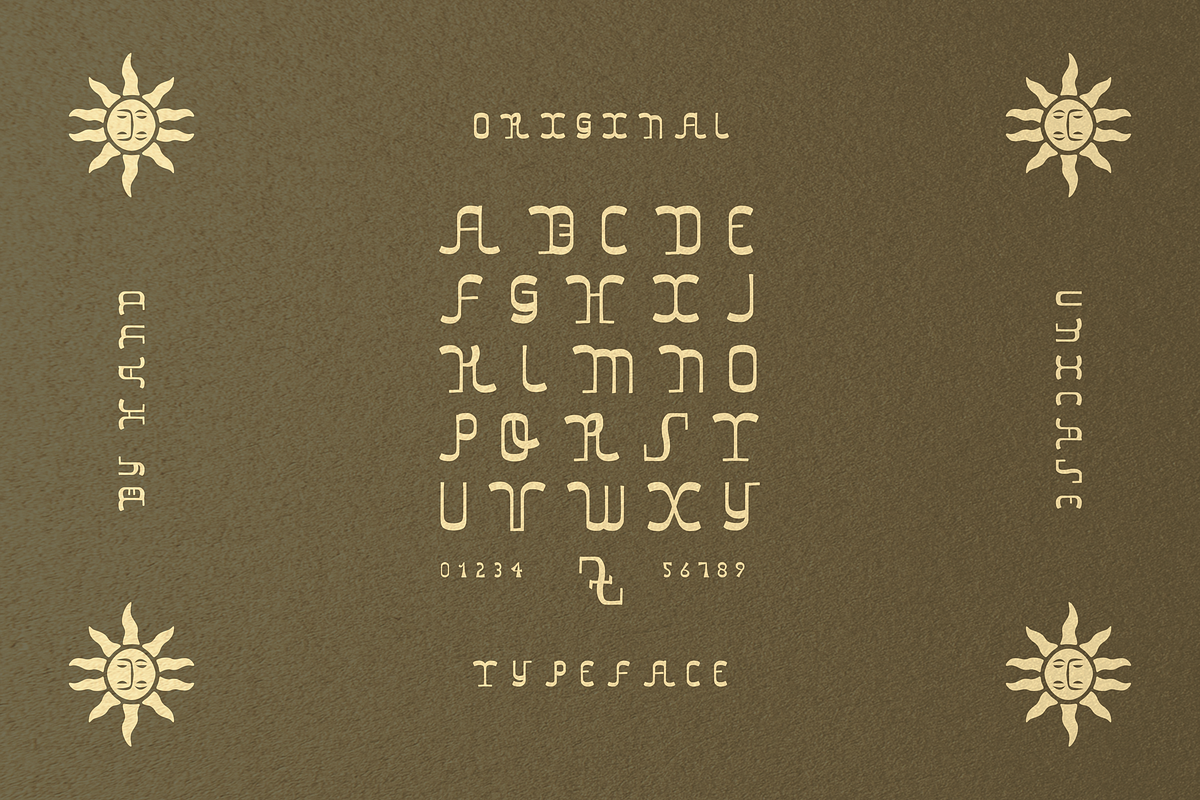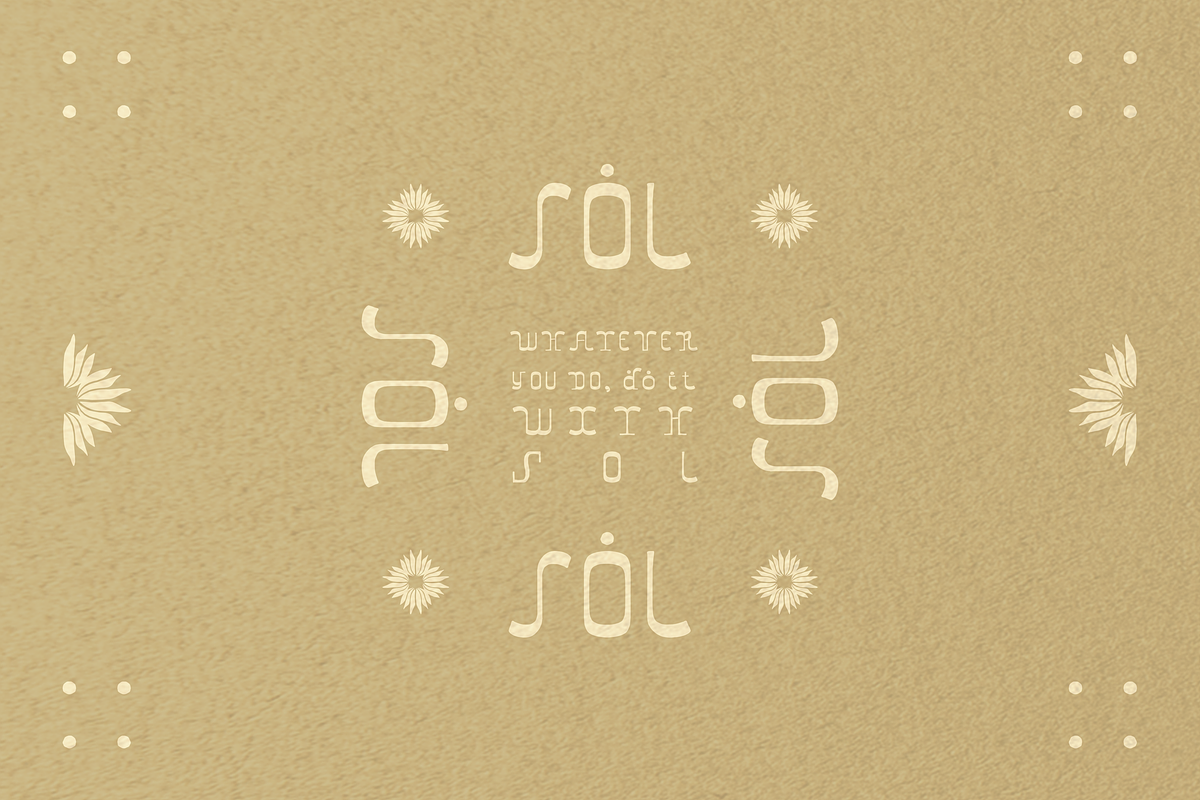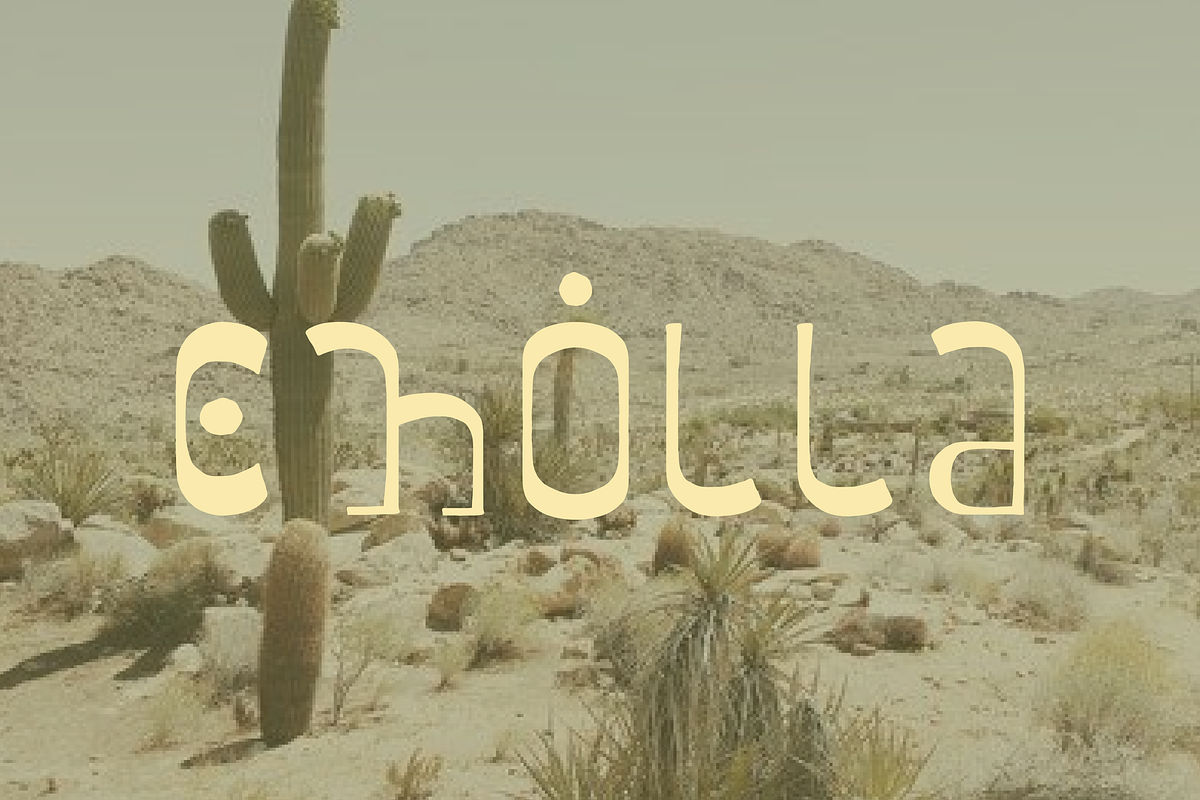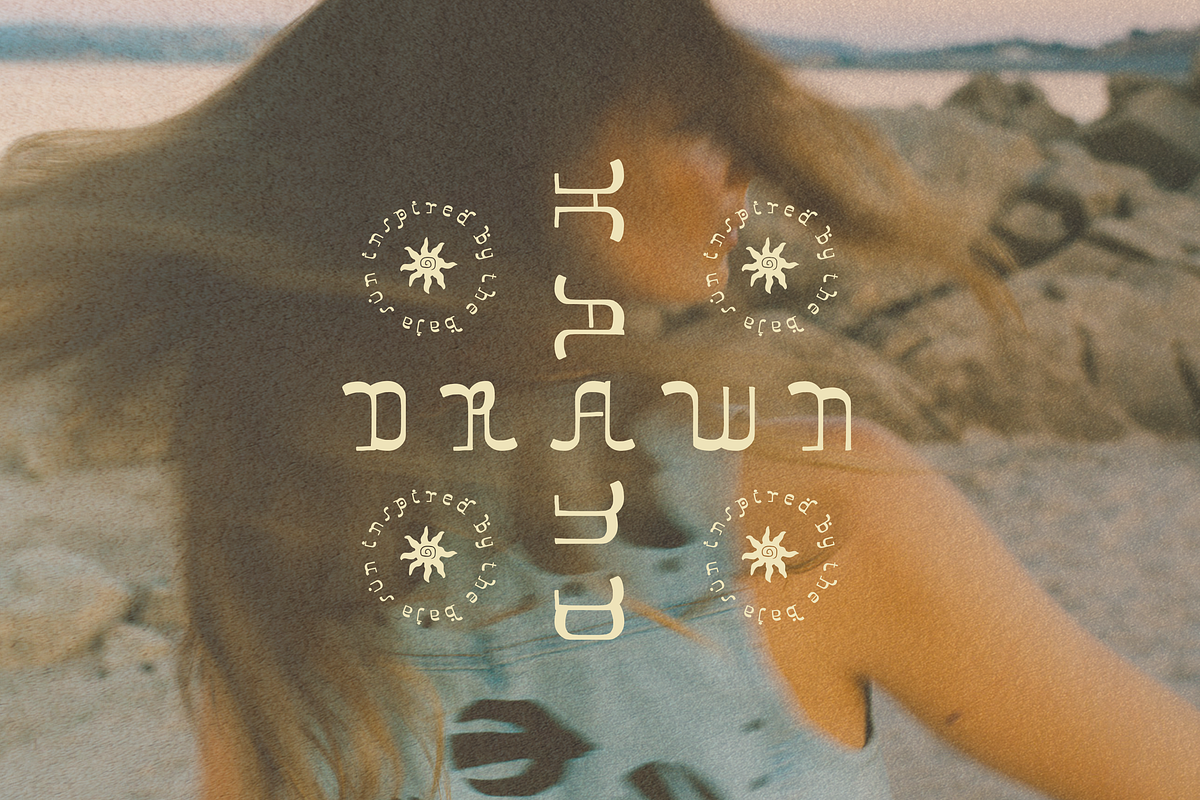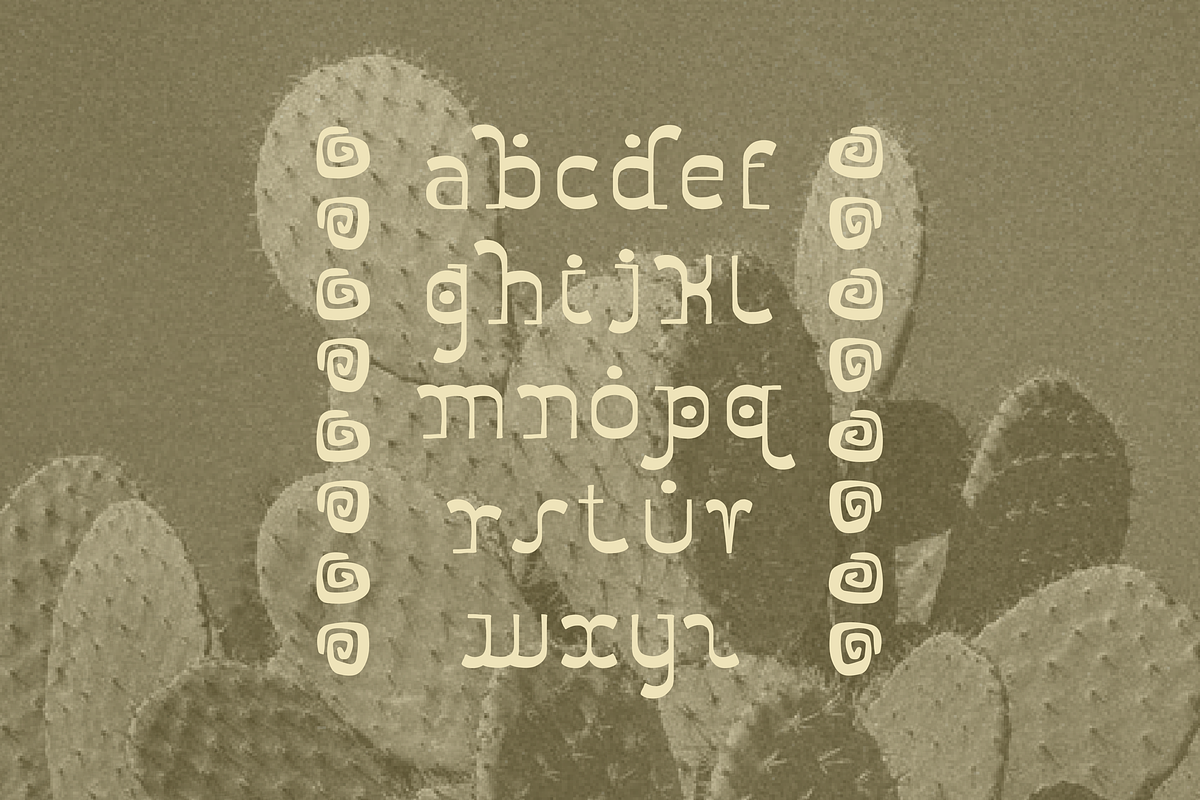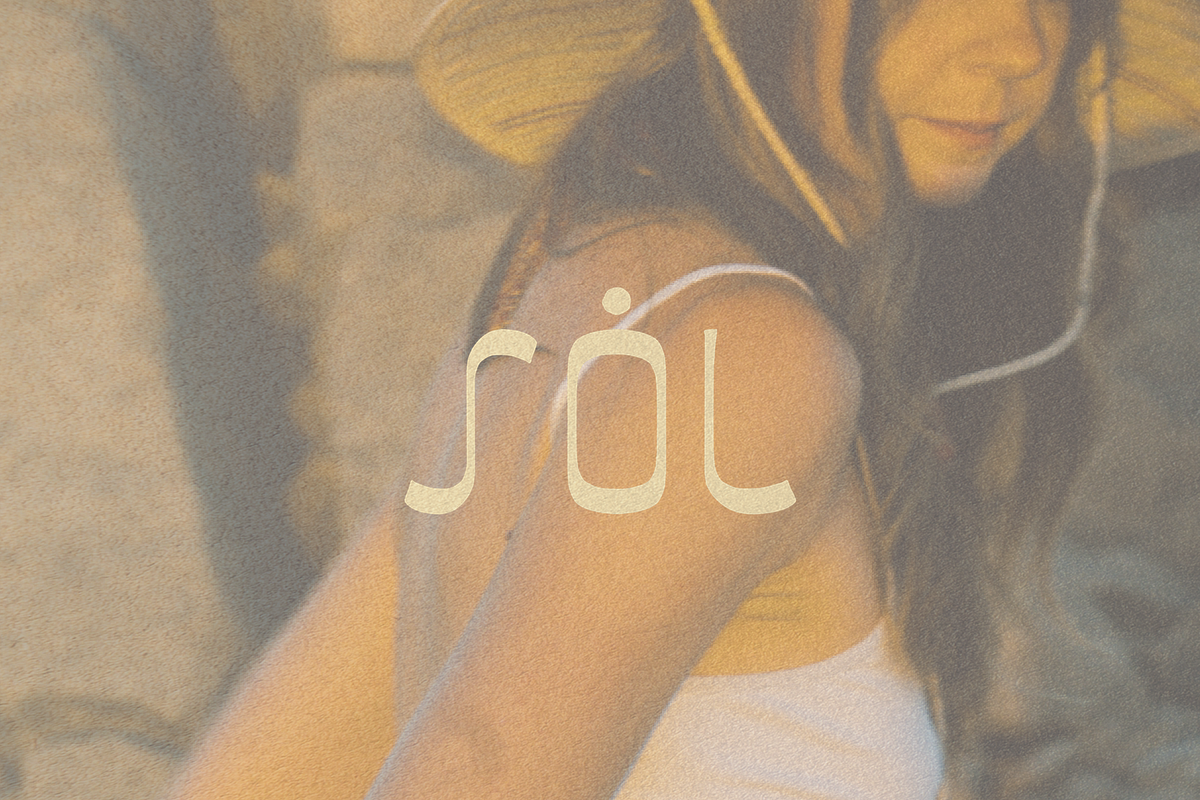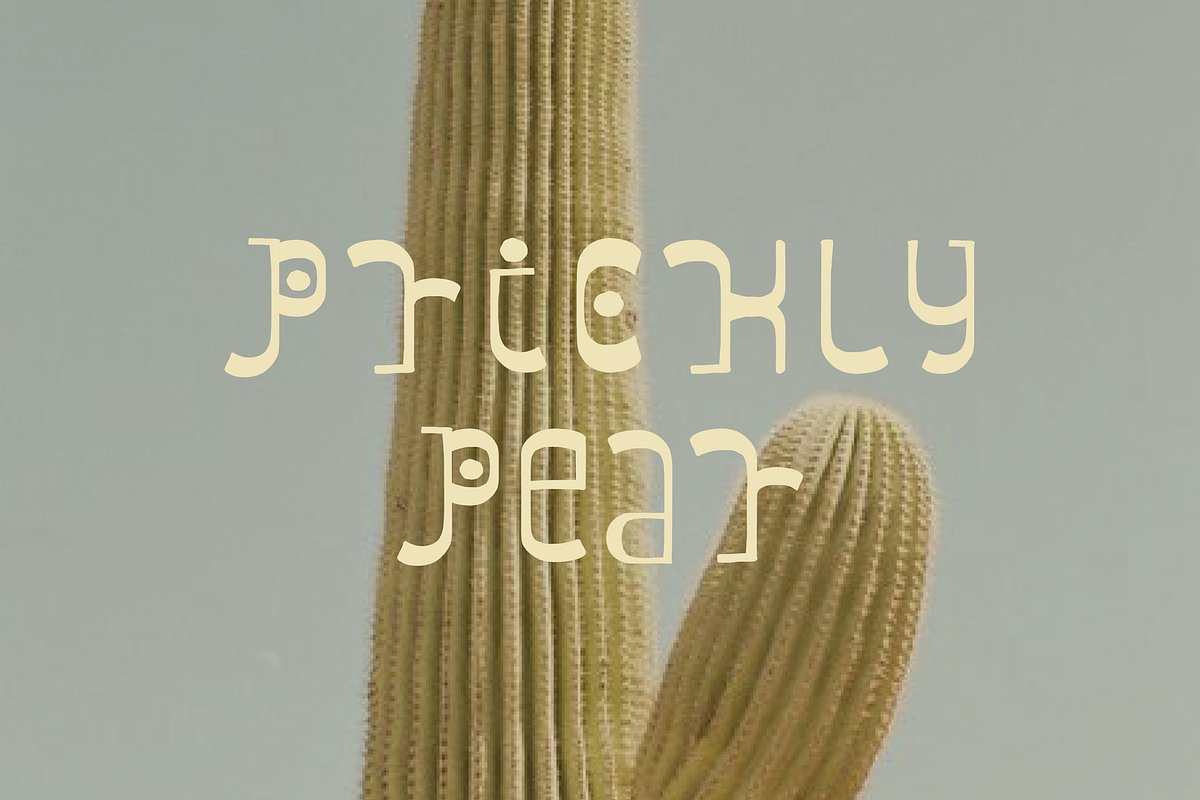
Sol Hand-drawn Font from By Hand
Don't let summer fade away. Meet SOL, a vibrant and energetic hand-drawn font that's perfect to keep the vibrancy of your favorite season going ALL year long!
SOL is the newest hand-drawn font from By Hand Designs. An organic and bohemian typeface inspired by the nomadic spirit and thrill of adventure. Use SOL to infuse your designs with a sun-kissed energy that's sure to captivate and bring a sense of nostalgia.
Use SOL everywhere: branding, print design, websites, merch, and so much more. Let the spirit of summer linger all year round with your new favorite expressive display font, SOL